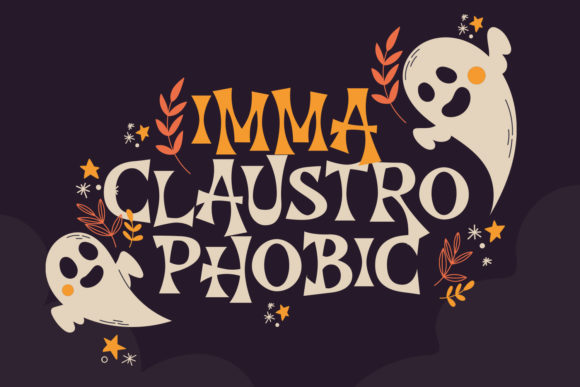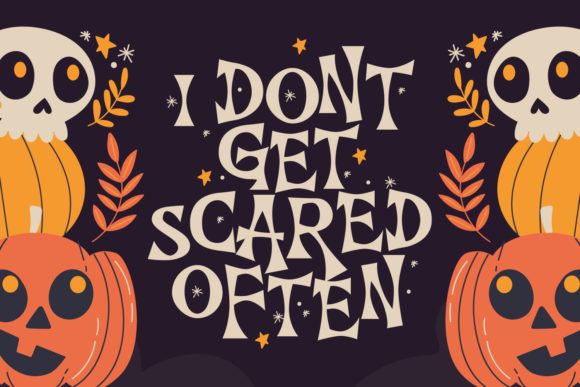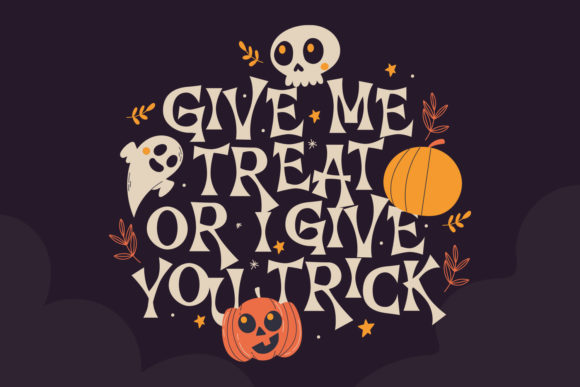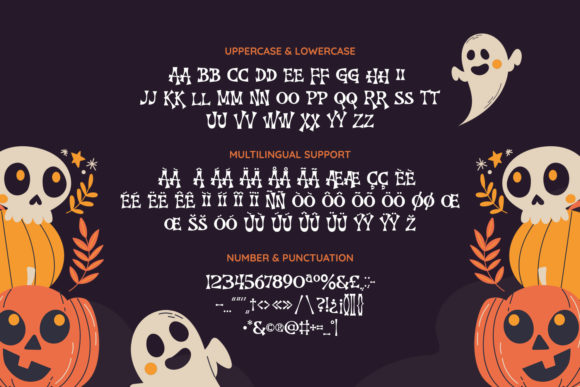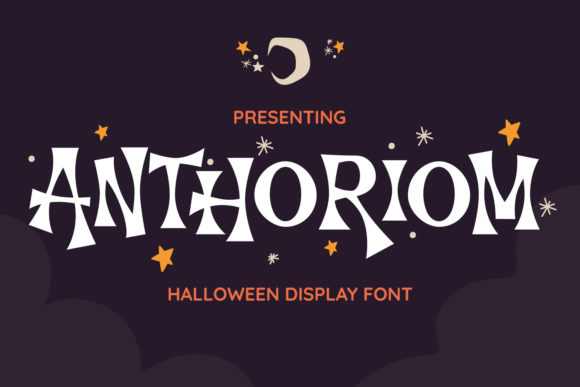
Introducing Anthuriom Font: The Spookiest Display Font for Halloween and Beyond
Are you a designer, crafter, or DIY enthusiast looking for a font that can add a touch of spookiness to your projects? Look no further than Anthuriom Font, a thick-lettered and eerie display font that’s perfect for Halloween-related projects and crafty ideas. With its bold and eye-catching design, Anthuriom Font is sure to make your creations stand out from the crowd.
What is Anthuriom Font?
Anthuriom Font is a unique and captivating display font that’s specifically designed to evoke the spirit of Halloween. Its thick, bold letters are perfect for creating eye-catching headlines, titles, and graphics that are sure to grab attention. Whether you’re working on a Halloween-themed project, a spooky craft, or simply want to add a touch of eeriness to your design, Anthuriom Font is the perfect choice.
Key Features of Anthuriom Font
So, what makes Anthuriom Font so special? Here are some of its key features:
- Thick-lettered design: Anthuriom Font features thick, bold letters that are perfect for creating eye-catching headlines and titles.
- Spooky and eerie feel: The font’s design is specifically tailored to evoke the spirit of Halloween, making it perfect for spooky-themed projects.
- Versatile: Despite its Halloween theme, Anthuriom Font can be used for a wide range of projects, from crafts and DIY projects to digital designs and marketing materials.
- Easy to read: Despite its bold design, Anthuriom Font is easy to read, making it perfect for use in headlines, titles, and other applications where readability is key.
Use Cases for Anthuriom Font
So, what can you use Anthuriom Font for? The possibilities are endless, but here are some ideas to get you started:
- Halloween-themed projects: Anthuriom Font is perfect for Halloween-themed projects, such as party invitations, decorations, and other spooky crafts.
- Crafty ideas: Use Anthuriom Font to add a touch of spookiness to your crafty projects, such as scrapbooking, card making, and other DIY crafts.
- Digital designs: Anthuriom Font can be used in digital designs, such as social media graphics, blog posts, and other online marketing materials.
- Signage and displays: Use Anthuriom Font to create eye-catching signage and displays for Halloween-themed events or promotions.
Tips for Using Anthuriom Font
Here are some tips for getting the most out of Anthuriom Font:
- Use it sparingly: Anthuriom Font is bold and eye-catching, so use it sparingly to avoid overwhelming your design.
- Pair it with other fonts: Experiment with pairing Anthuriom Font with other fonts to create a unique and visually appealing design.
- Experiment with colors: Try out different colors and textures to add depth and interest to your design.
Anthuriom Font is a unique and captivating display font that’s perfect for Halloween-themed projects and crafty ideas. With its bold and eye-catching design, it’s sure to make your creations stand out from the crowd. Whether you’re a designer, crafter, or DIY enthusiast, Anthuriom Font is a must-have font in your collection. So why wait? Download Anthuriom Font today and get creative with your spooky designs!
The only limit is your imagination, so don’t be afraid to experiment and come up with unique and creative ways to use Anthuriom Font. Happy designing and crafting!